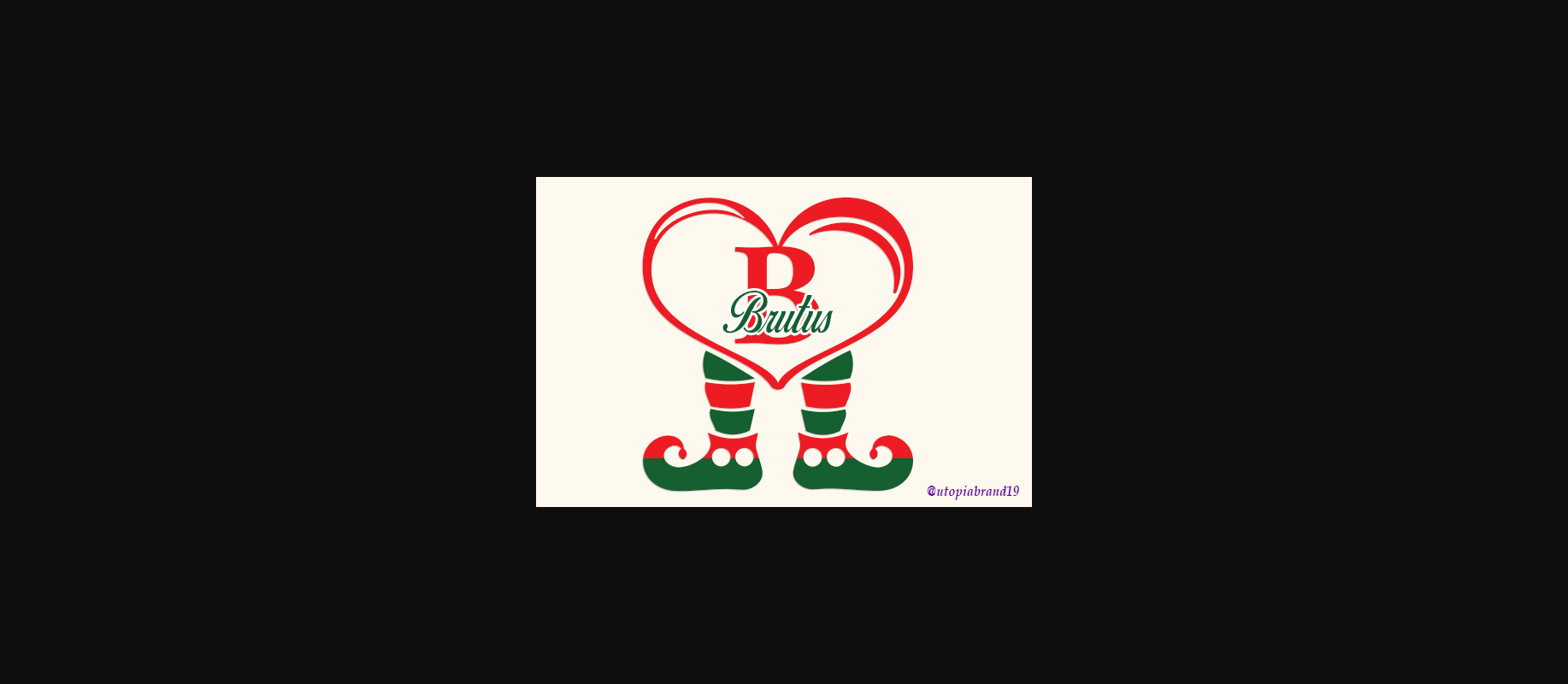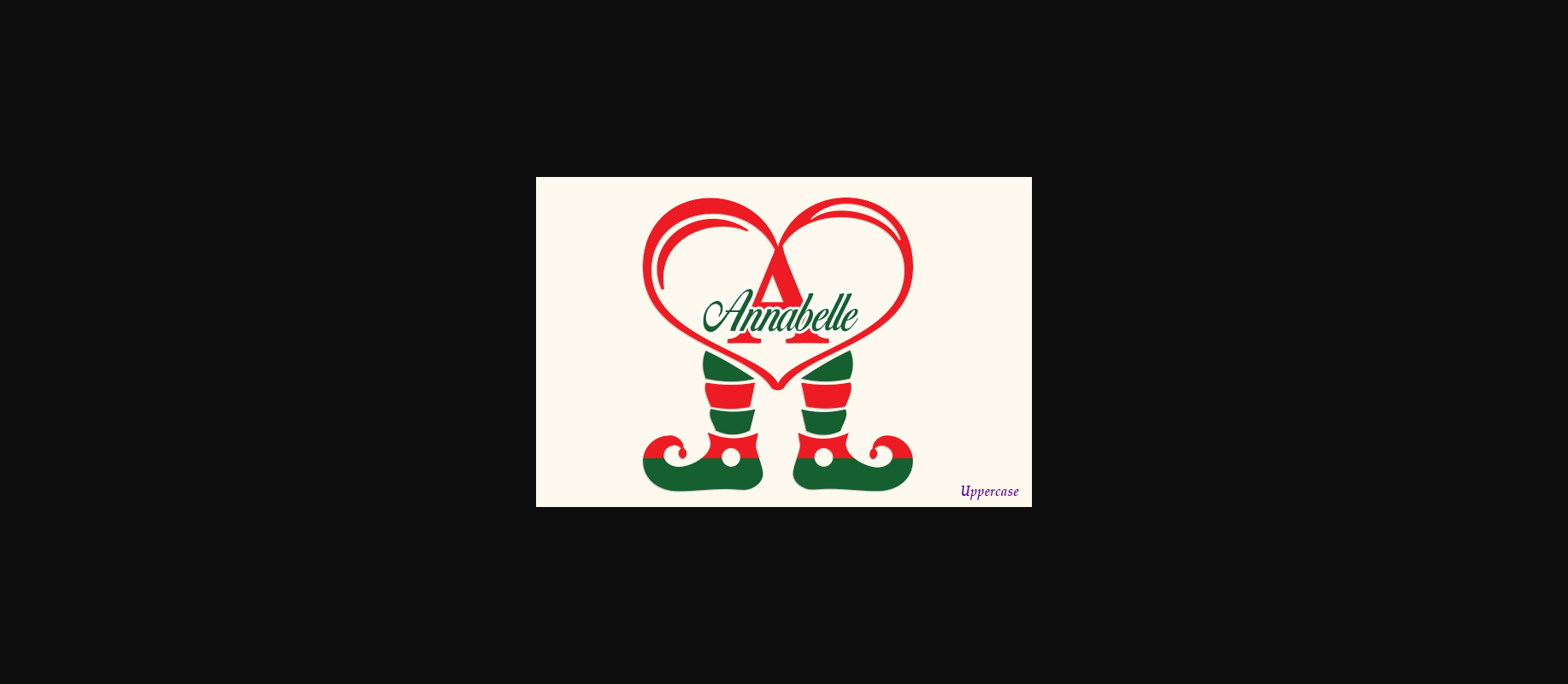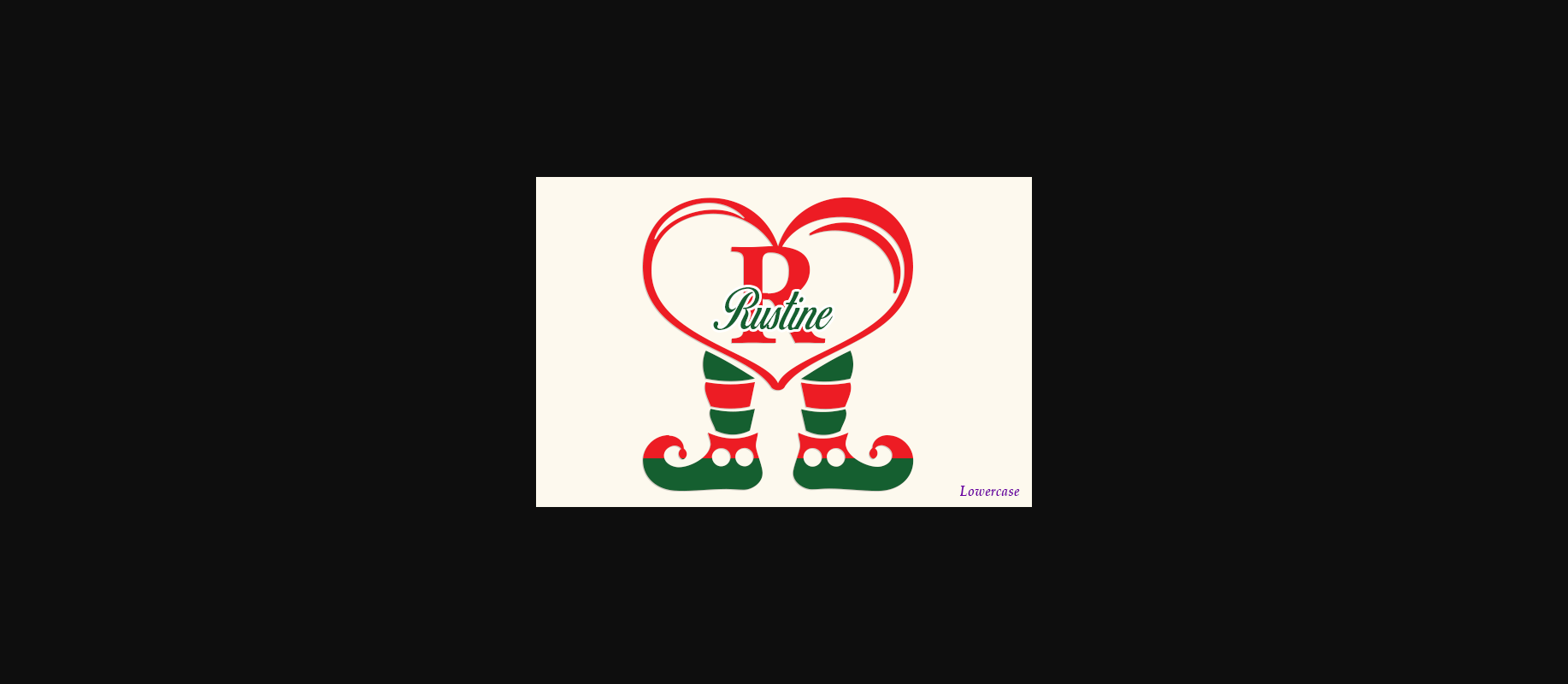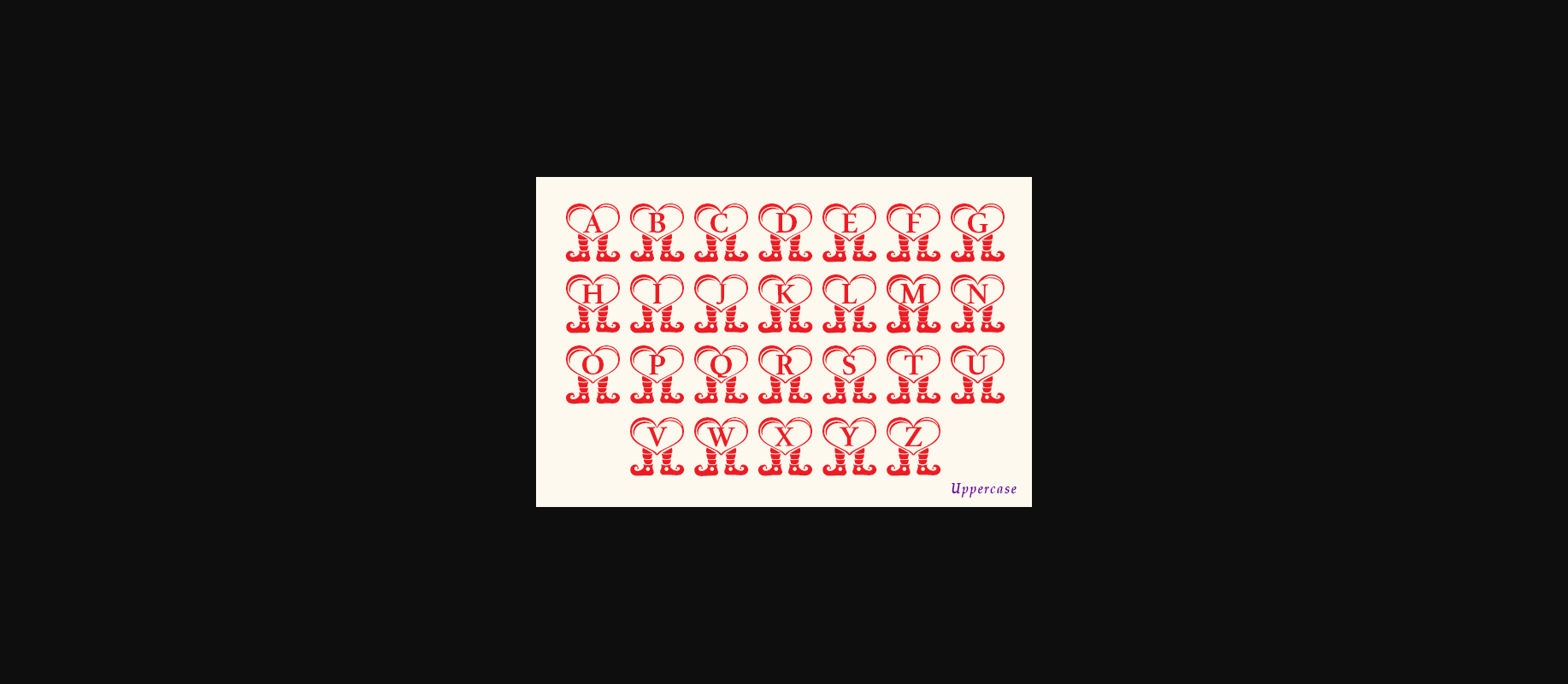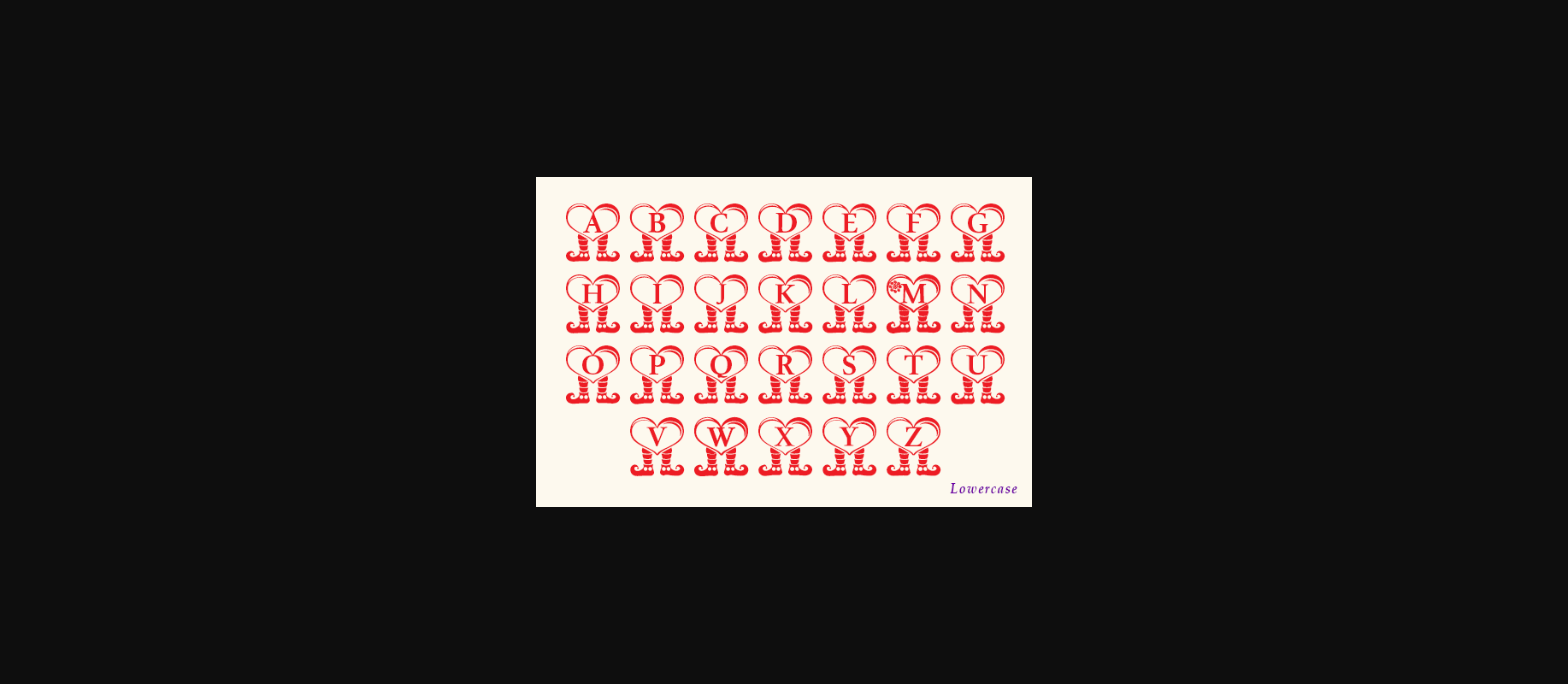
Brutus Elf Leg Monogram is a sweet Christmas holiday inspired decorative font. Fall in love with its authentic feel and use it to create gorgeous designs.